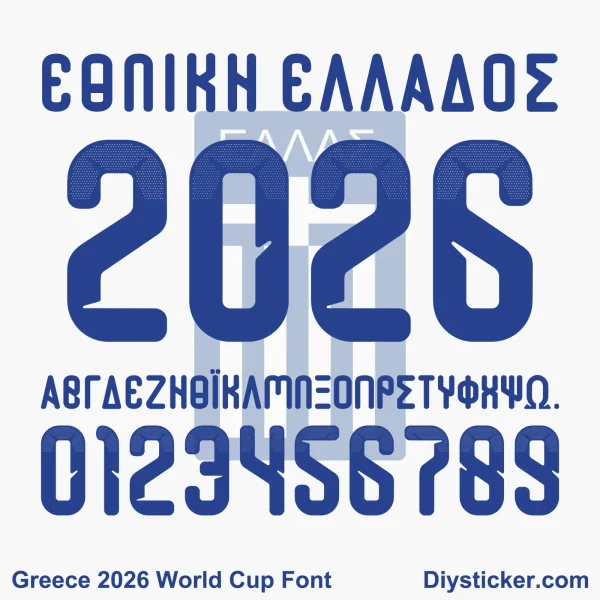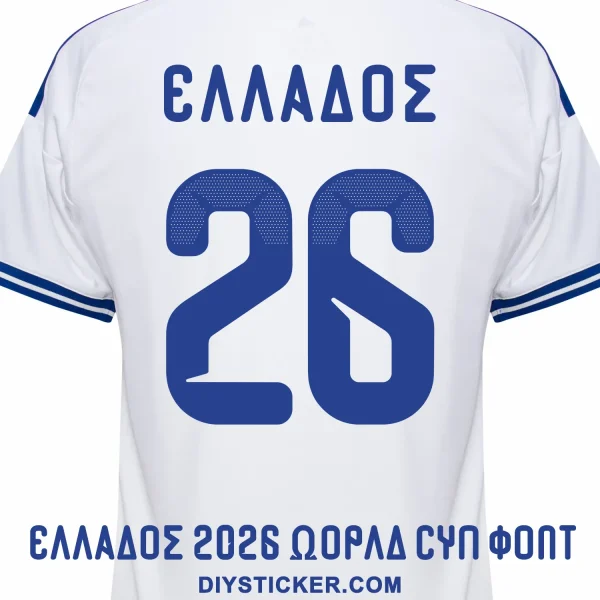
Greece 2026 World Cup Font Download – Greek Alphabet Edition
Bring ultimate localized authenticity to your international kit production with this premium typography asset. This package delivers the official-style Greece 2026 World Cup font completely mapped with native Greek alphabet characters (Α-Ω) and numbers. Engineered specifically for professional nameset manufacturers, vinyl graphics shops, and sports apparel designers, this file ensures perfect compliance with authentic national team lettering conventions. Includes an automated instant digital download link immediately following secure checkout.
Full Greek Glyphs Included: Complete character set featuring all native Greek letters (ΑΒΓΔΕΖΗΘΙΚΛΜΝΞΟΠΡΣΤΥΦΧΨΩ) and localized accents.
Greece 2026 World Cup Font & Numbers Vector Kit: Native Greek Alphabet Edition
Optimize your custom print production with the highly anticipated Greece 2026 World Cup font, featuring native Greek alphabet character optimization (ΕΘΝΙΚΗ ΕΛΛΑΔΟΣ). Built specifically to replicate the specialized tournament look worn during premier international stages, this digital toolkit offers unrivaled geometric precision for localized player name-sets. Whether you are fulfilling a custom request for a die-hard fan or creating massive localized stadium banners, our clean vectors ensure a premium look. Discover our wider repository of team options by exploring the curated World Cup 2026 Fonts index.
Aesthetic Design Breakdown & Localized Typography Engineering
The Greece 2026 World Cup Greek Font is a spectacular artistic marriage of classical Mediterranean letterforms and contemporary performance graphics. Key visual features include:
Intricate Halftone Gradient Dot Pattern: The upper curves and arches of the primary digits incorporate a meticulously engineered halftone dot matrix gradient. This technical texture dissolves smoothly into the solid body, creating an elite visual depth that prevents namesets from washing out under intense stadium lights.
Hellenic Calligraphic Geometry: Melding fluid, sweeping curves with sharp inward-pointing notches and angular cuts, the characters pay subtle homage to historical Greek inscriptions while retaining a fast, aerodynamic sports profile.
Seamless Greek Glyph Mapping: Unlike standard global releases that lack localized characters, this pack includes fully developed, structurally native representations of unique characters like $\Sigma$, $\Lambda$, $\Xi$, and $\Omega$, keeping layouts proportional and authentic.